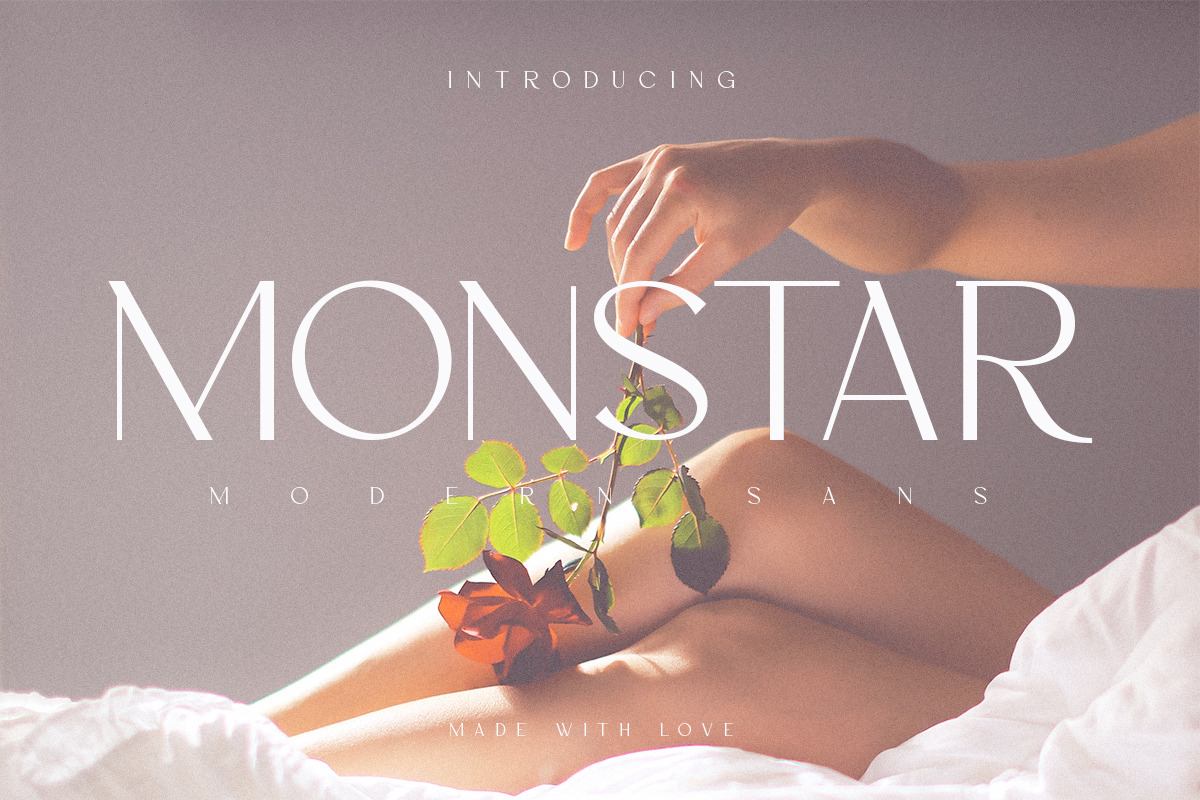
Monstar Modern Sans Font Free Download is a contemporary sans-serif typeface that offers a clean and modern aesthetic, making it suitable for a variety of design projects. Its sleek lines and balanced proportions make it ideal for branding, logos, headlines, and other creative applications where a modern touch is desired.
Designed by Storytype Studio, Monstar includes uppercase letters, numerals, and a wide range of punctuation marks. Its versatility allows it to adapt seamlessly to various design contexts, providing a professional and stylish appearance.